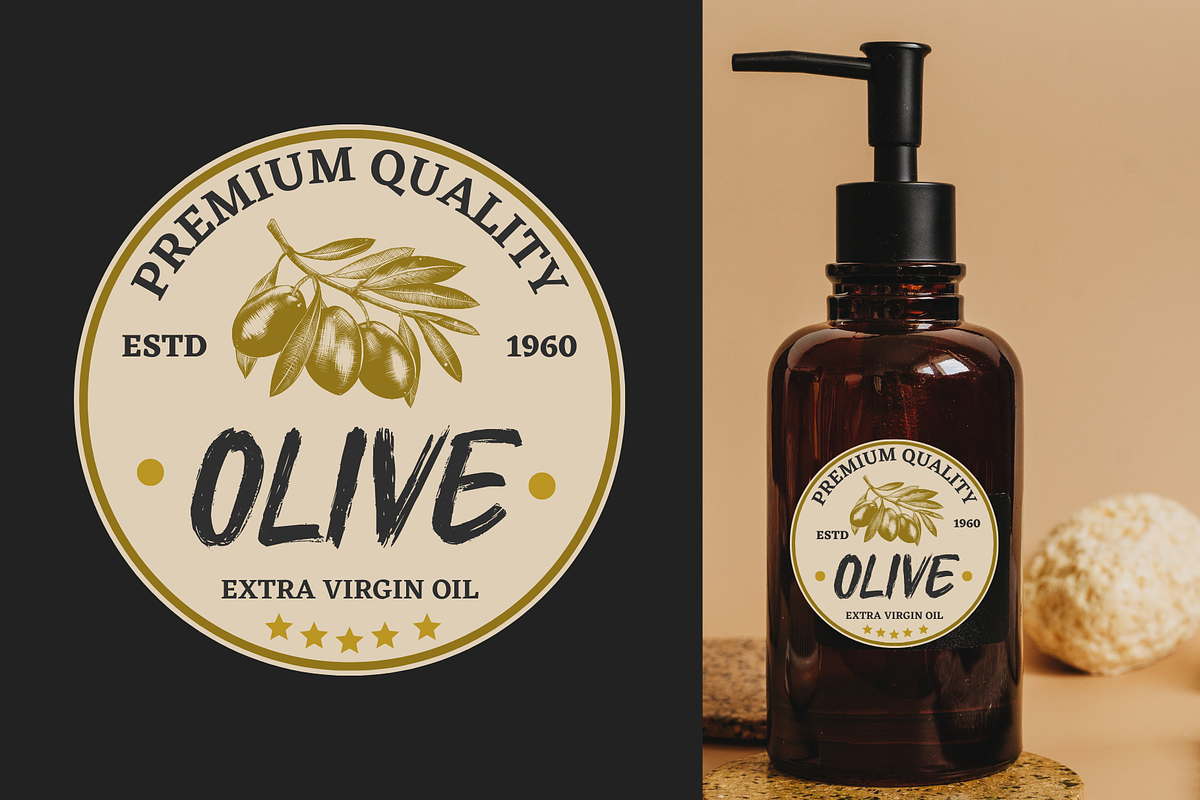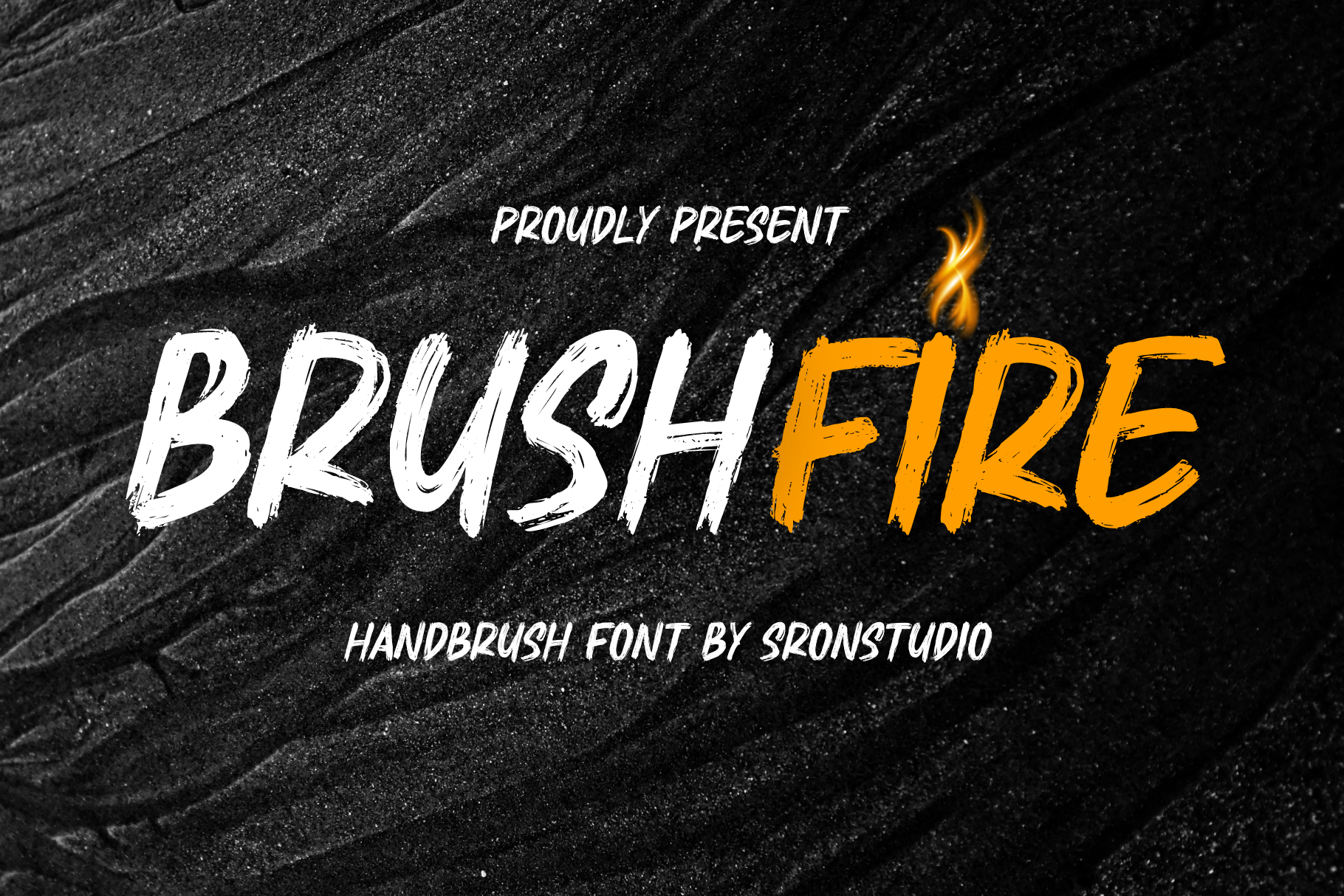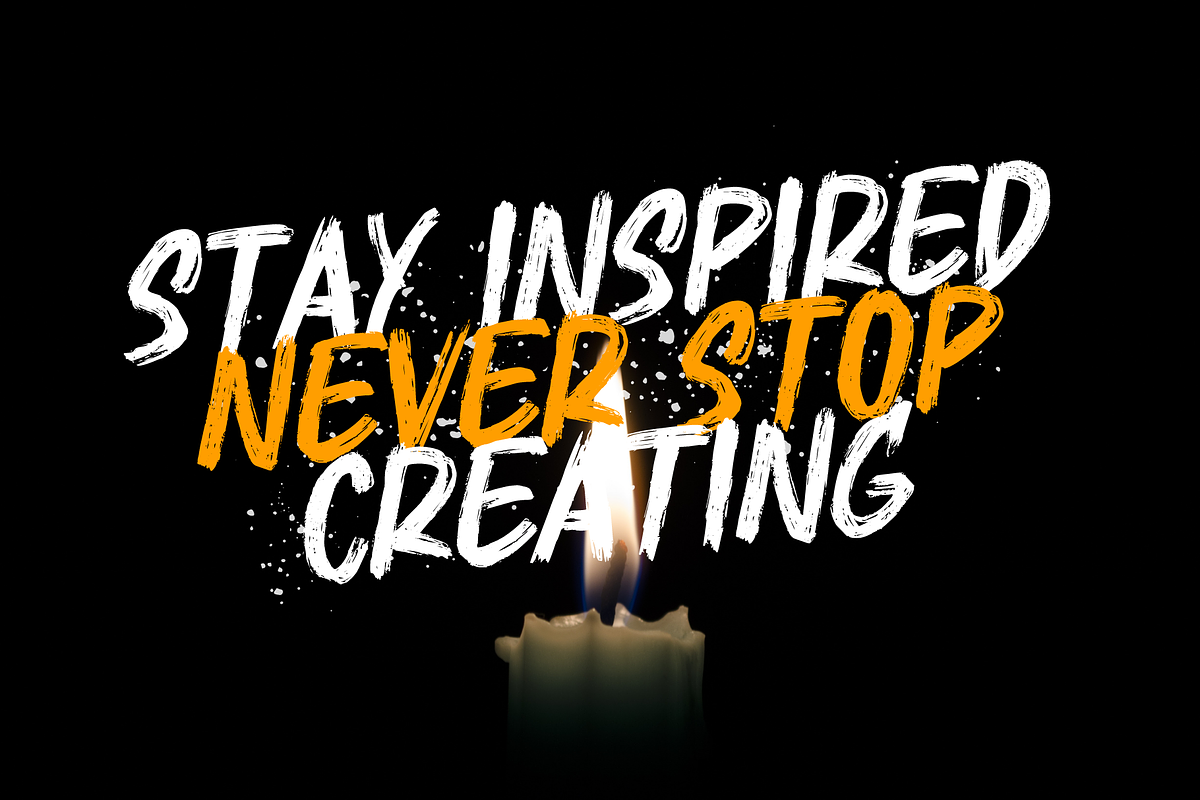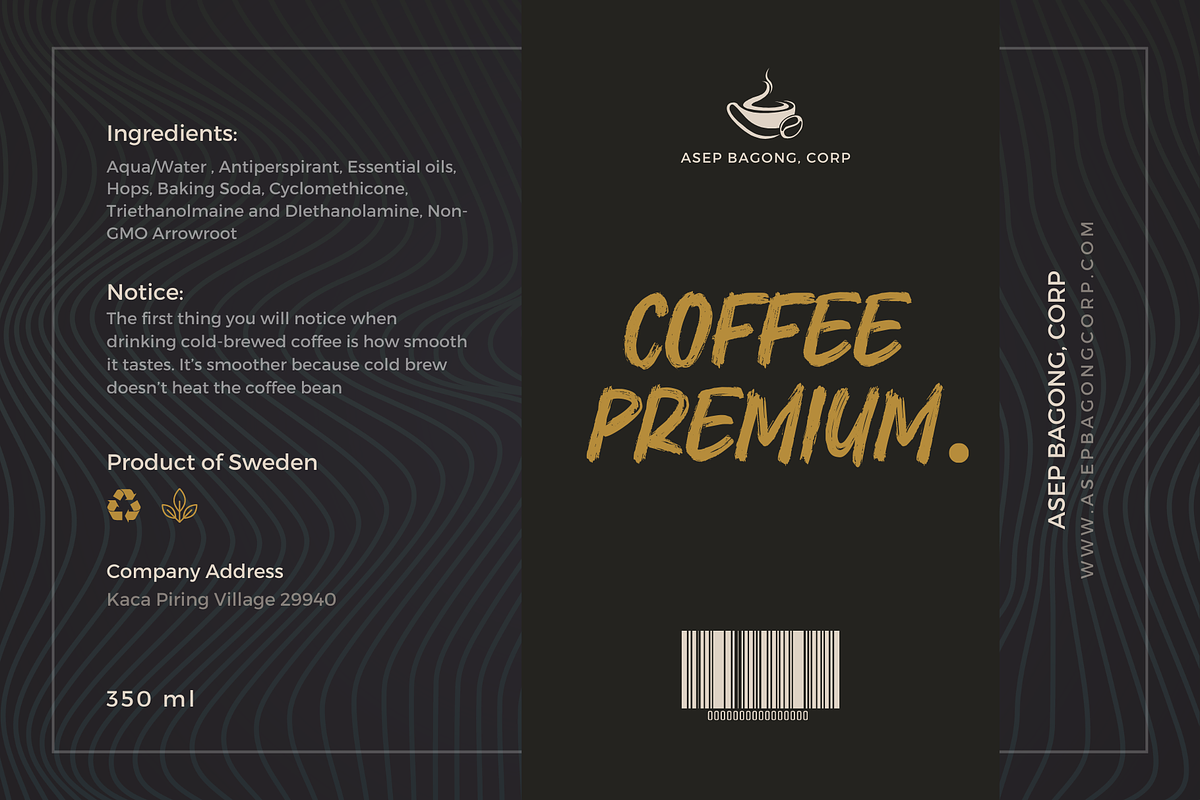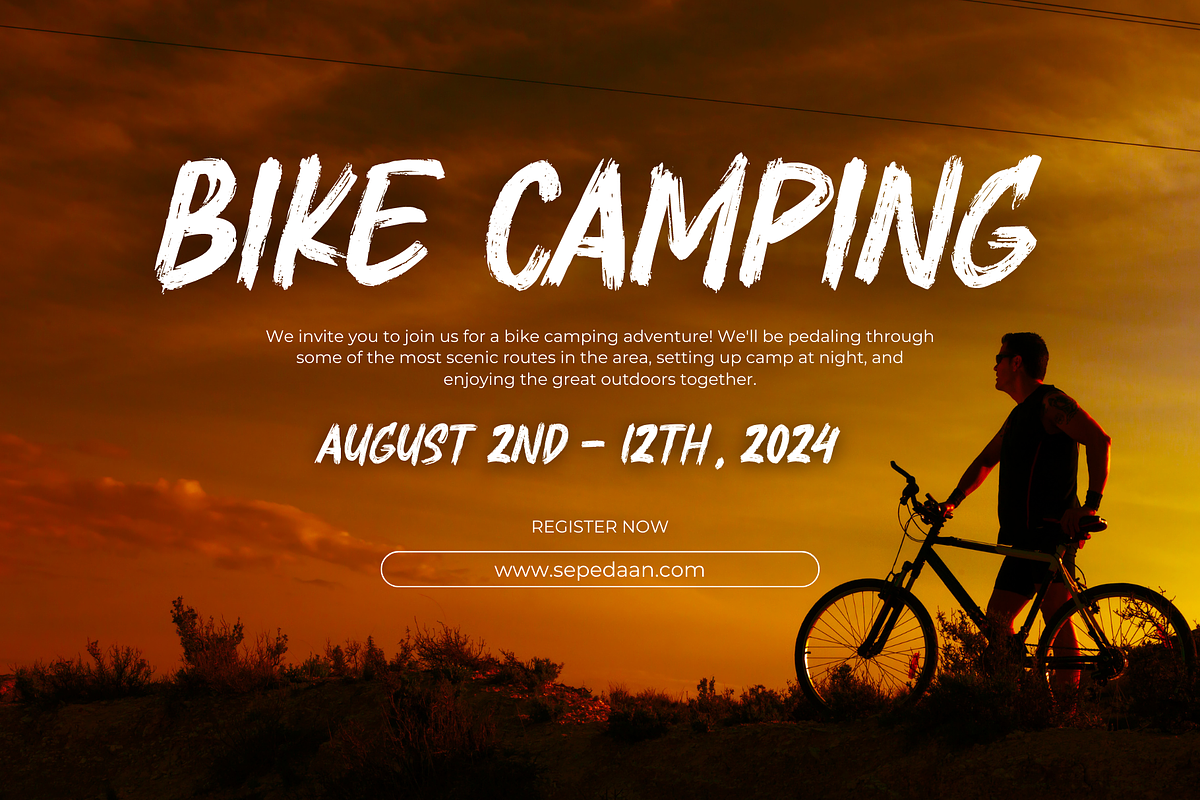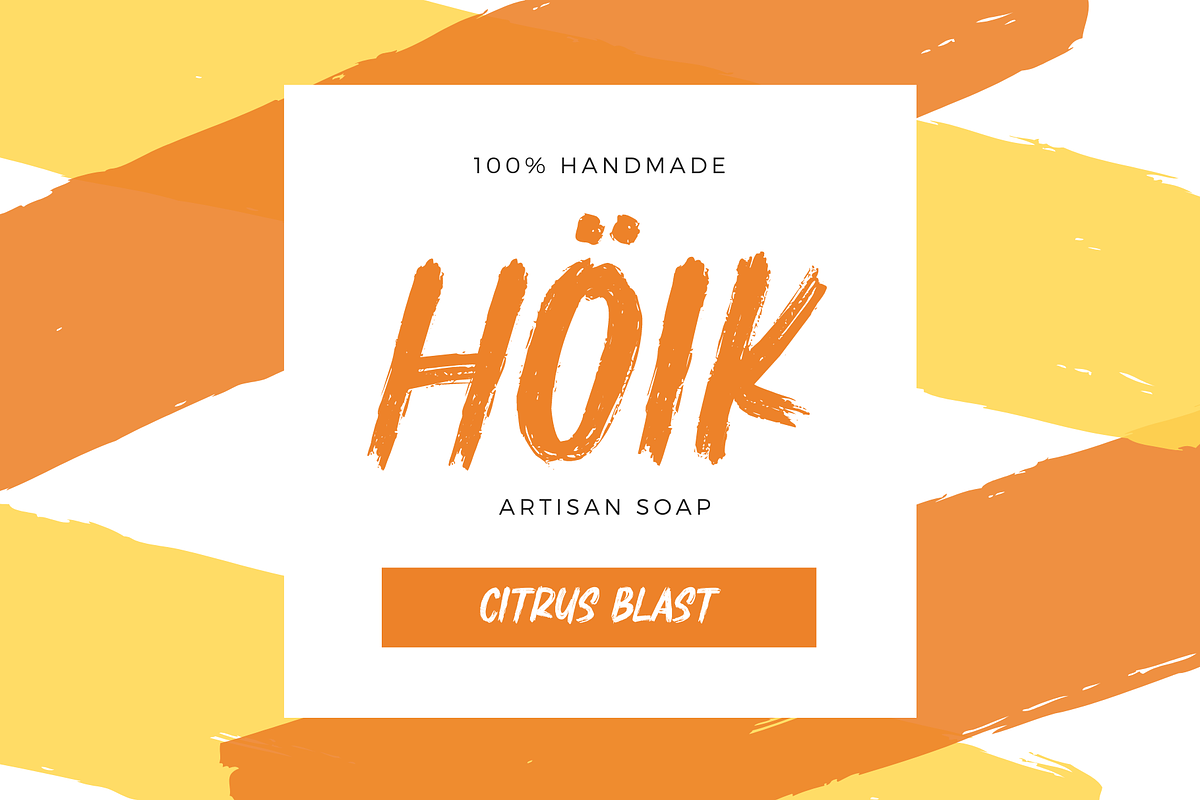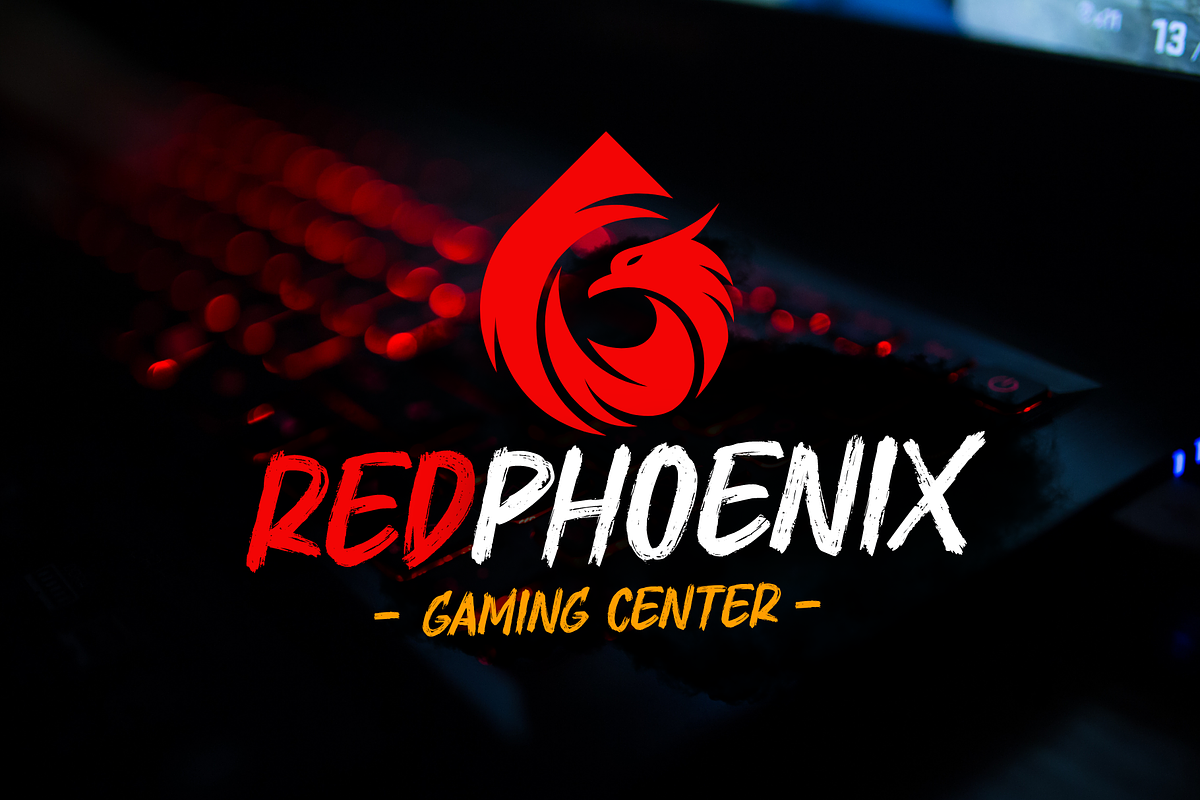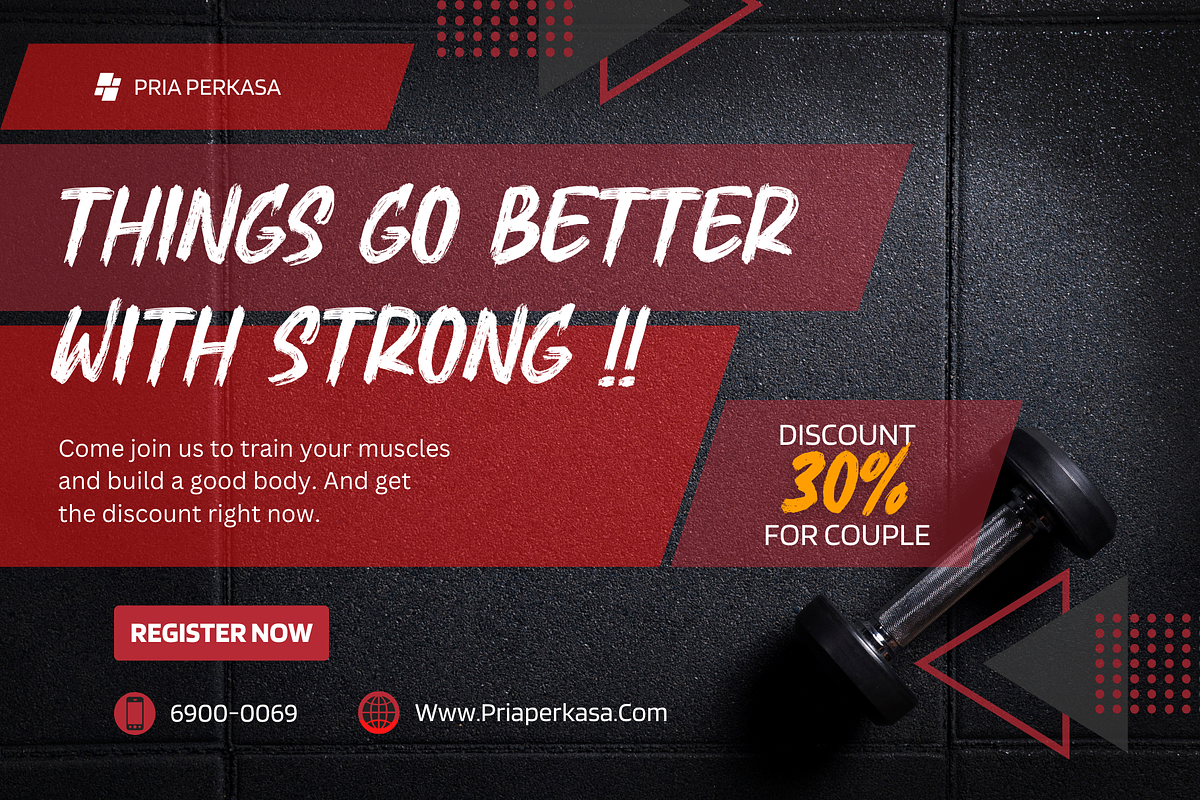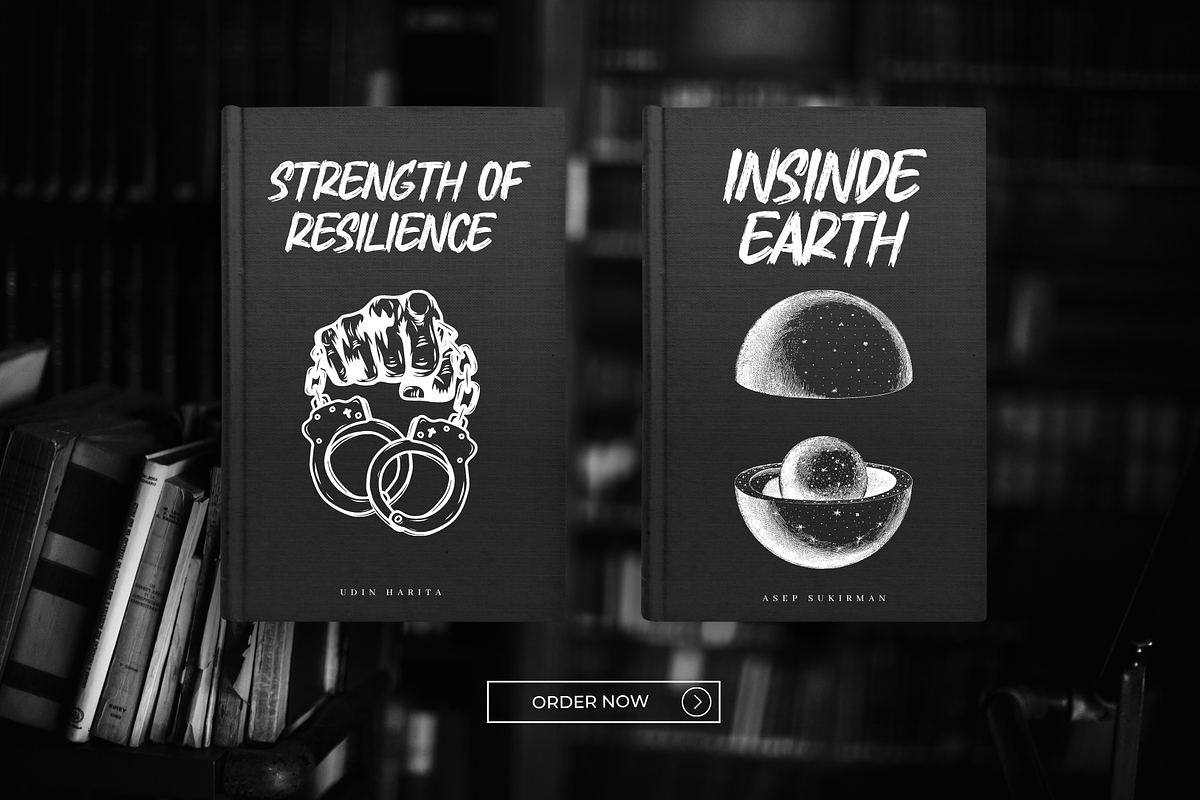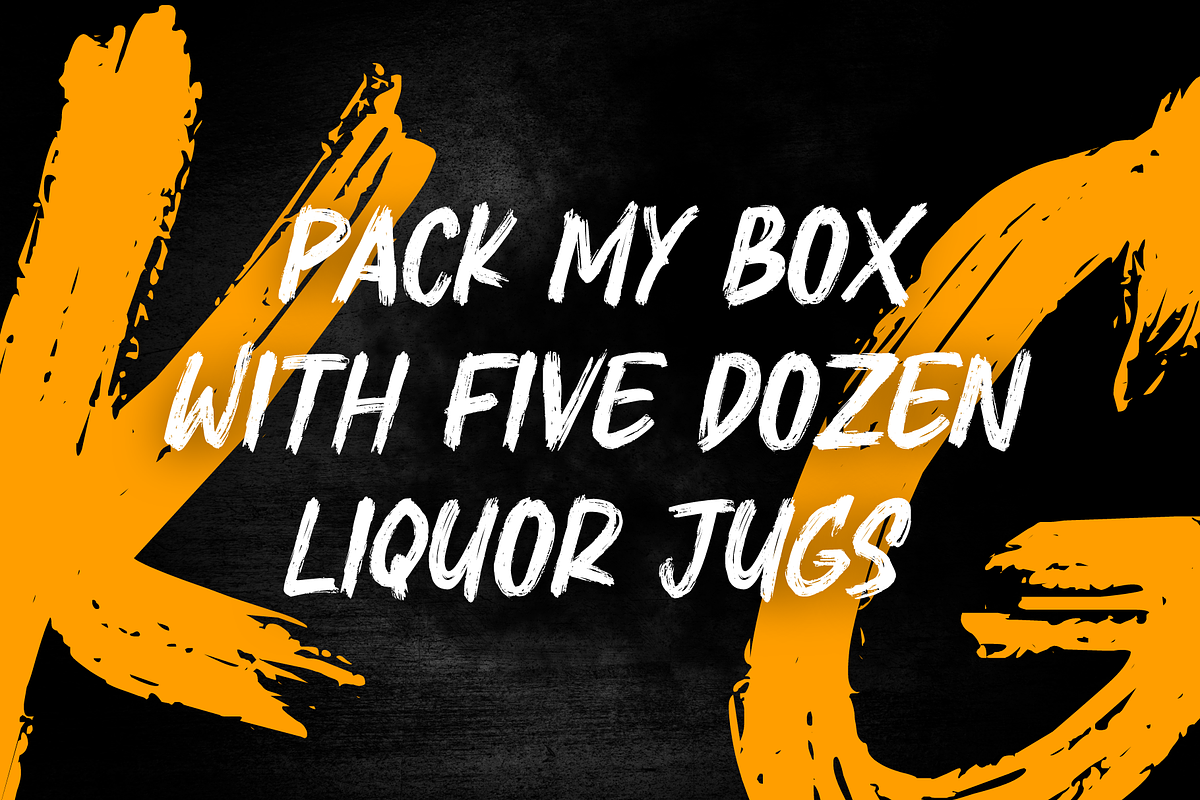
Brushfire - Textured Font
"Brushfire" is a playful font with a handbrush texture, featuring rough edges and uneven strokes for a rustic and organic look. It adds a bold and edgy feel to any project and creates a sense of depth and dimension with its textured appearance. The font is both legible and expressive, making it perfect for a variety of design projects.
- Uppercase and lowercase letters
- Multilingual, numerals, and punctuation